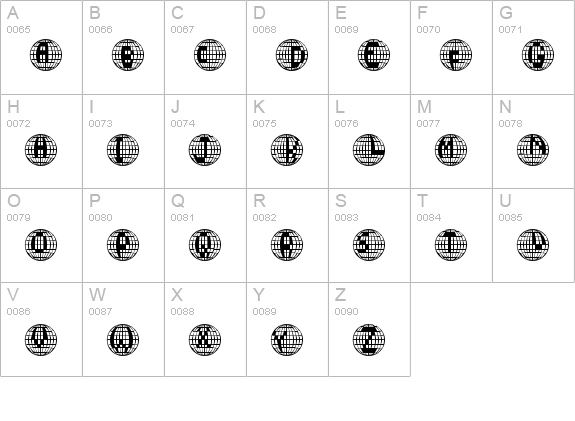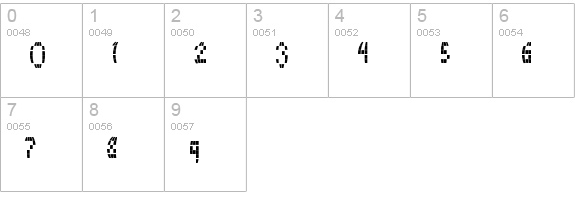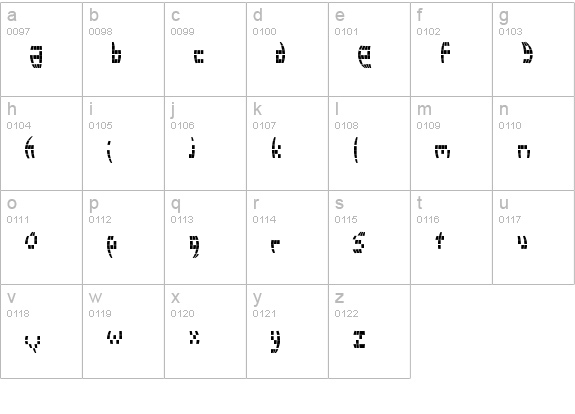
Disco 2000 font is a groovy and retro typeface that brings back the vibrant energy and funky spirit of the disco era. With its bold and dynamic letterforms, Disco 2000 font is perfect for adding a touch of nostalgia and excitement to any design project. Whether you're creating party invitations, posters, or album covers, this font will make your text pop and stand out. Best of all, Disco 2000 font is completely free to download at FontsMarket.com. Simply head over to the website and grab this font to add a fun and playful element to your designs. Get ready to dance the night away with Disco 2000 font!